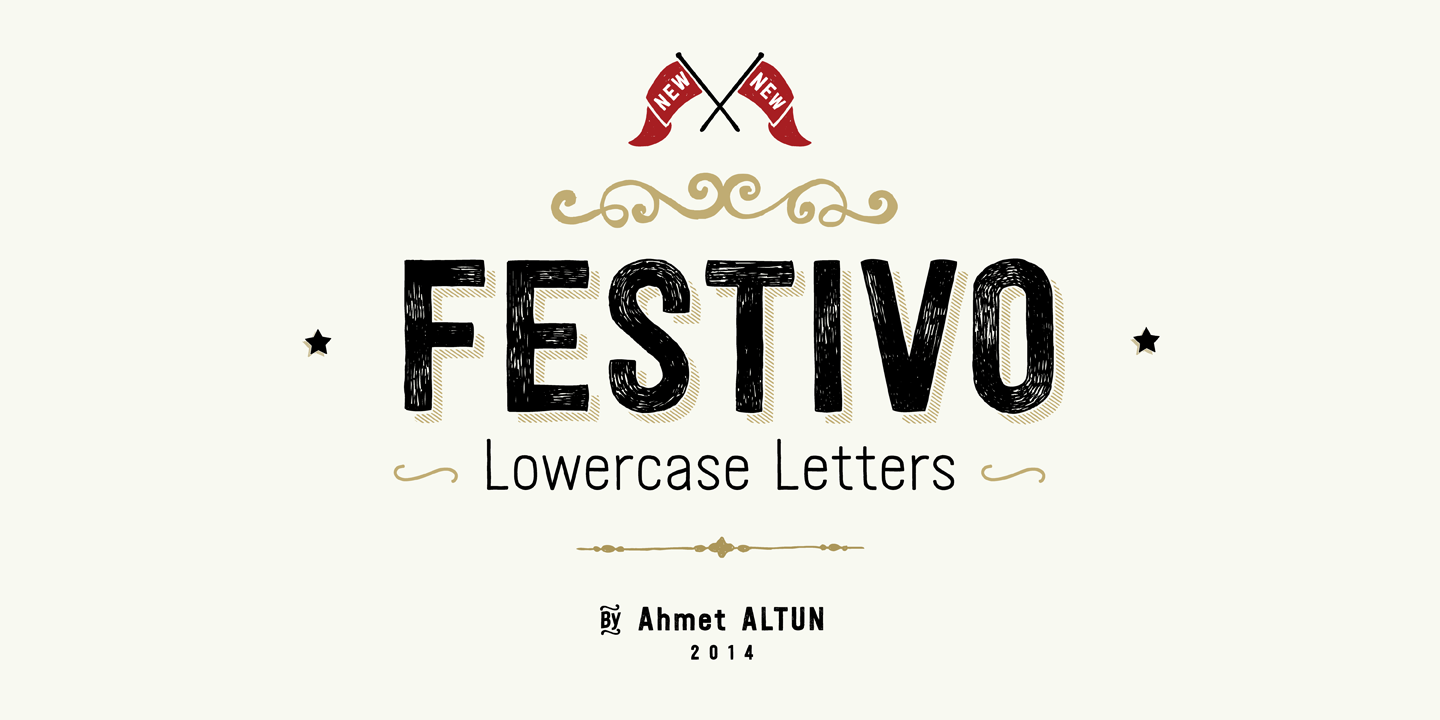
Festivo LC Font is an energetic and captivating typeface, perfectly suited for designs that aim to convey joy, celebration, and a dynamic personality. Its often decorative and expressive nature makes it an excellent choice for a variety of exciting projects, including vibrant event invitations, festive posters, playful greeting cards, engaging social media campaigns, and creative packaging designs. Whether you're announcing a party, promoting a special occasion, or simply want to add a touch of artistic flair to your visuals, Festivo LC Font brings a unique blend of cheerfulness and sophisticated charm, ensuring your message is both memorable and visually appealing.
What makes Festivo LC Font so exciting is its distinct ability to infuse designs with a sense of lively spirit and decorative elegance. It often features intricate details, beautiful swashes, or a hand-crafted feel that gives it a bespoke quality. This font isn't just about readability; it's about creating an experience, adding a celebratory touch that draws the eye and sparks interest. It’s the kind of typeface that can transform a simple text into a piece of art, making it perfect for projects that require a strong visual impact and a unique character that stands out from the crowd. Its inherent artistic quality ensures your designs will leave a lasting and positive impression.
The Festivo LC Font family typically offers a range of styles designed to enhance its versatility for various creative applications. While the exact configurations can vary, you might find different weights such as Regular and Bold, or perhaps alternative characters and ligatures that expand its decorative capabilities. Some versions might even include stylistic sets that allow for customization and unique textual expressions. Each style within the Festivo LC Font family maintains its distinctive festive and decorative appeal, ensuring a cohesive and harmonious look across all your creative projects, from bold headlines to more nuanced textual elements.